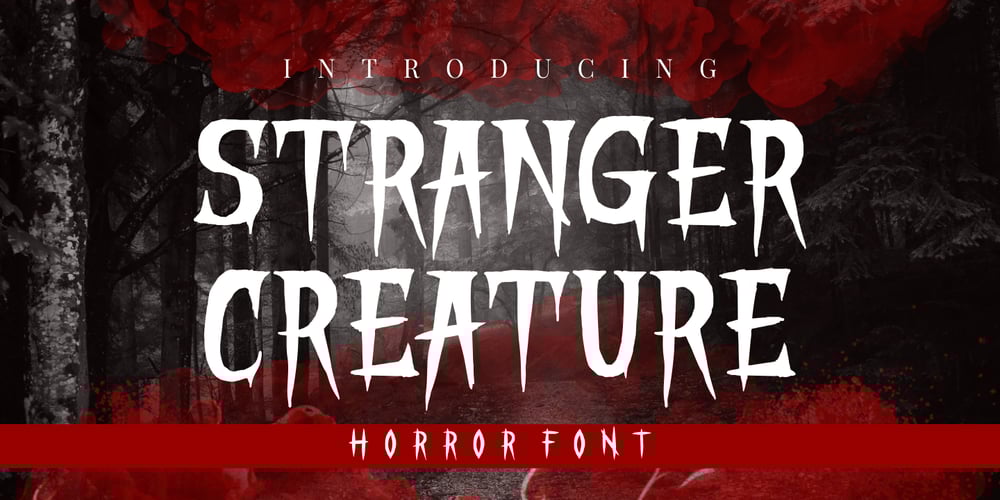
Stranger Creature Font Family was designed by Putra Novembria Candra Kusuma and published by Putracetol. Stranger Creature contains 1 styles and family package options. Stranger Creature is a horror style display font. Inspired from horror and thriller movies, this font is designed for Halloween, horror, thriller and scary theme projects. Stranger Creature would be perfect for logos, quotes, apparel, comics, book covers, cards, posters, or anything that requires a horror or scary look to it.